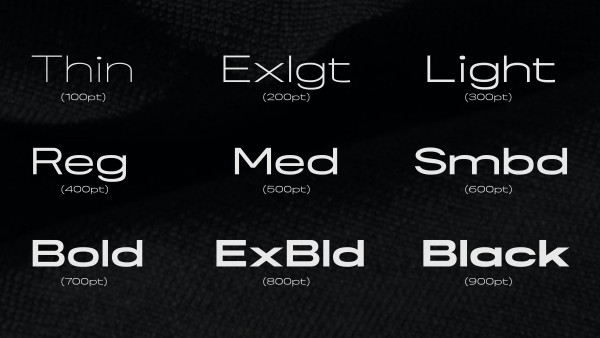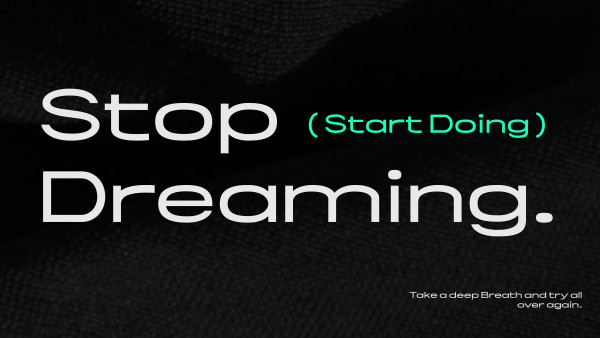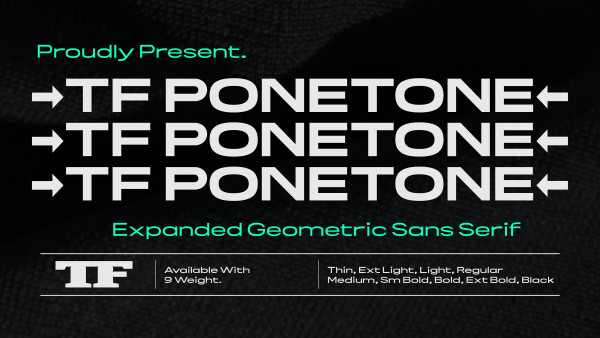
TF Ponetone Expanded Font
TF Ponetone Expanded Font, this sans-serif font is a true masterpiece of exquisite beauty. Its precise and geometric shapes exude a sense of sophistication and elegance, while its attention to detail and fine lines convey a refined and delicate touch. Ideal for any design project that requires a touch of modernity and refinement.